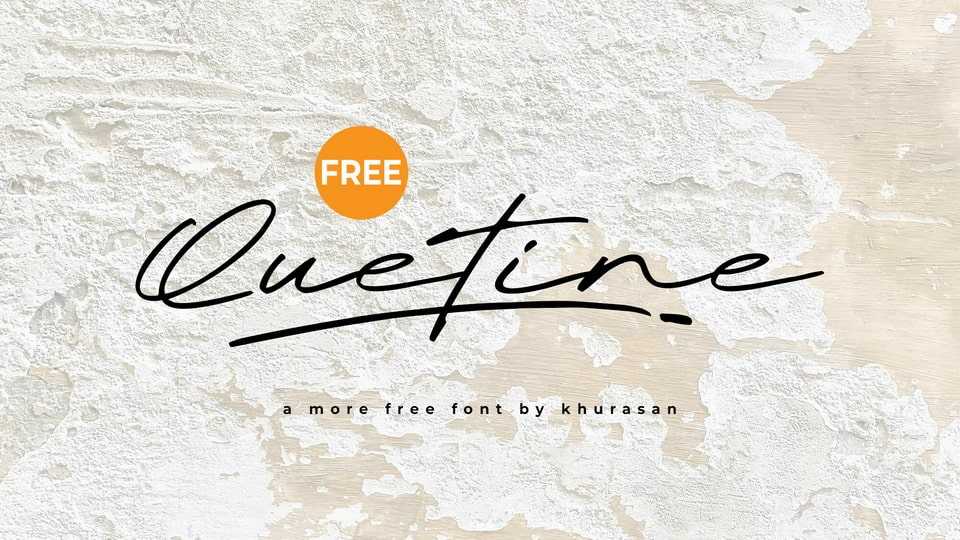
Download Quetine font, a dynamic signature-style handwritten typeface that captures the natural flow of ink on paper with its fluid, expressive strokes.